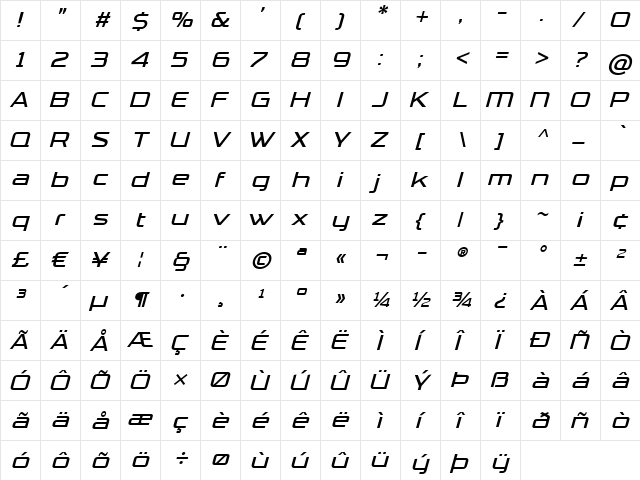
TradeMarker Light Italic Font Preview
TradeMarker Light Italic
Design Context for TradeMarker Typeface
TradeMarker offers clean, dependable letterforms without strong stylistic allegiance, making it a practical choice for designers who need flexibility. Its italic angle brings a sense of urgency and motion to the letterforms. The delicate stroke weight brings airiness and refinement to layouts.
Pro Tip: Use TradeMarker for emphasis, pull quotes, and subheadings where its slanted energy can add rhythm to the layout.